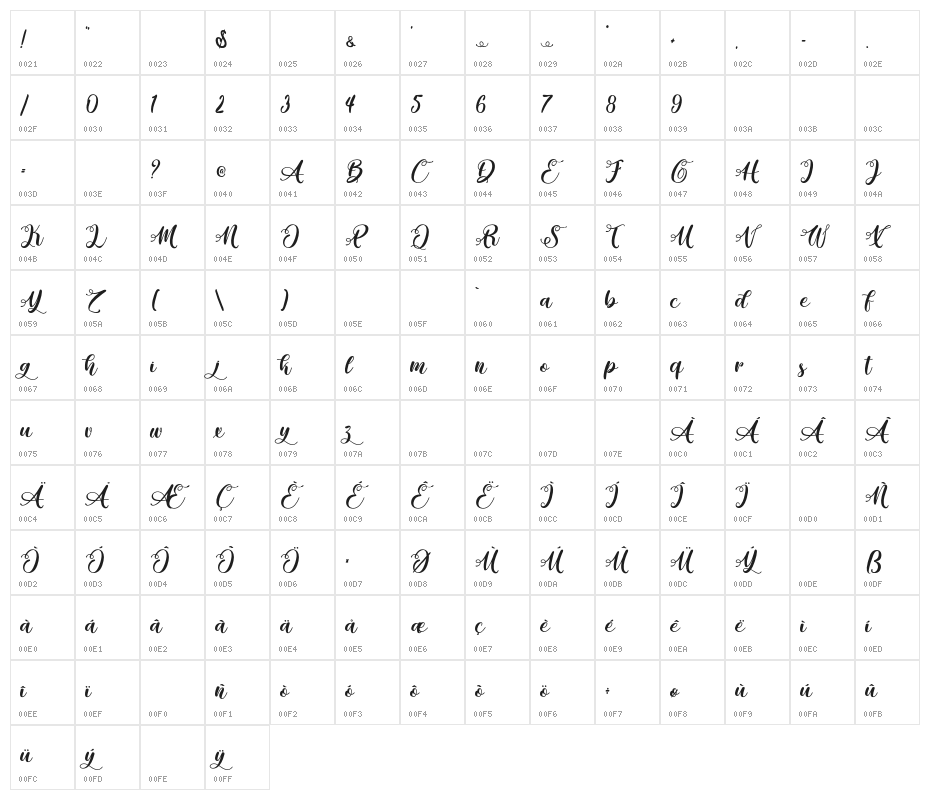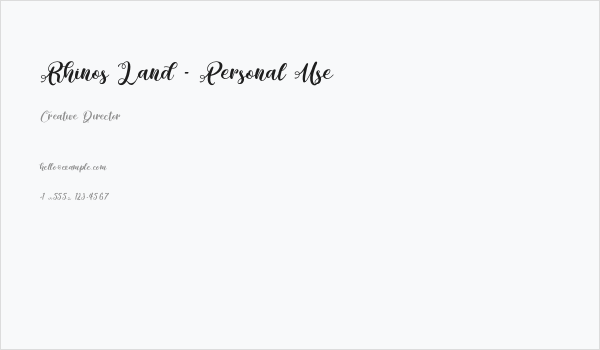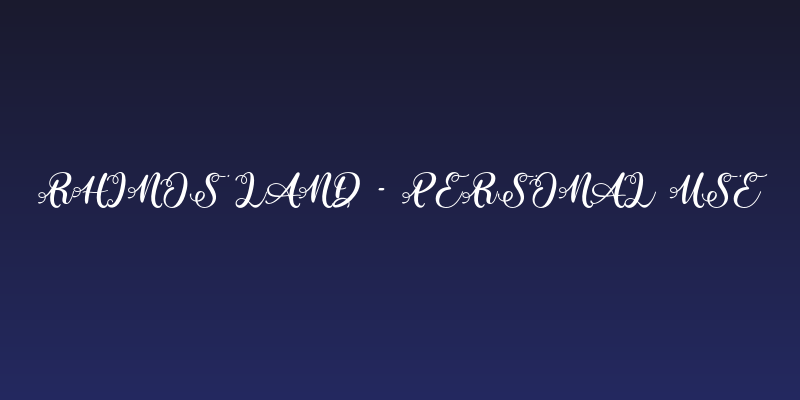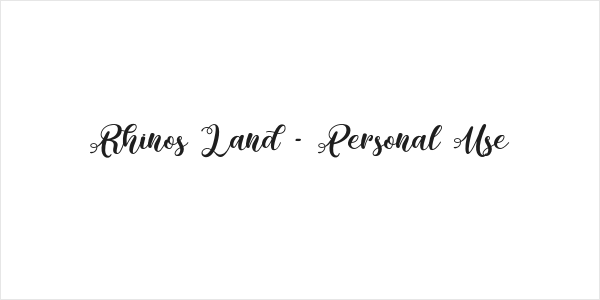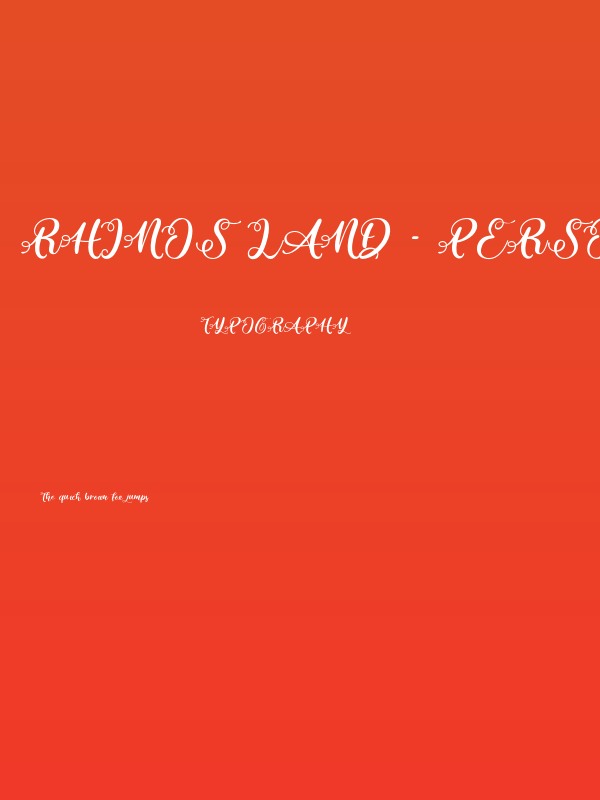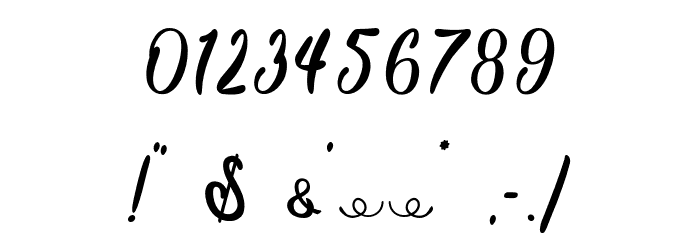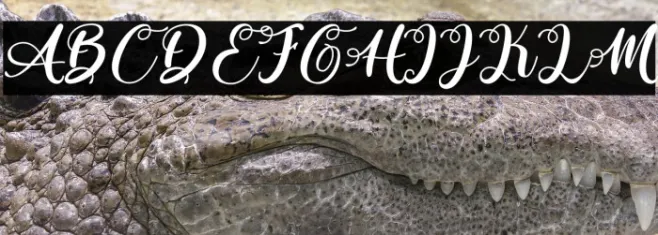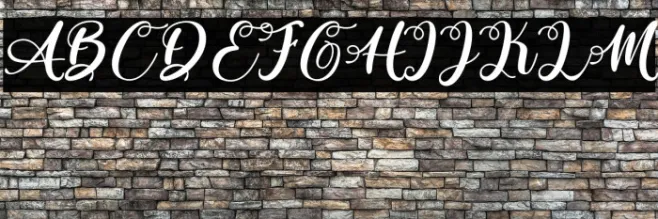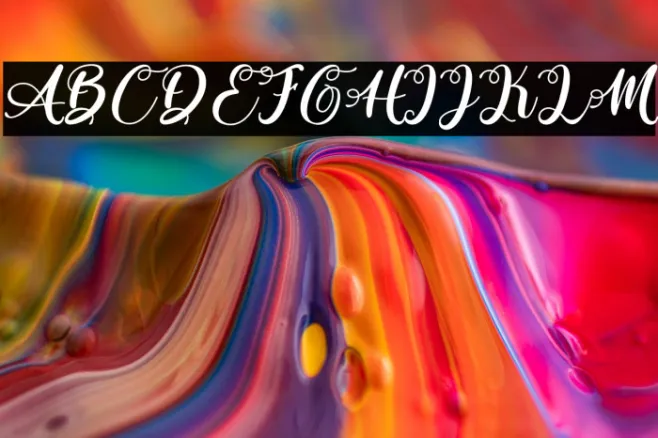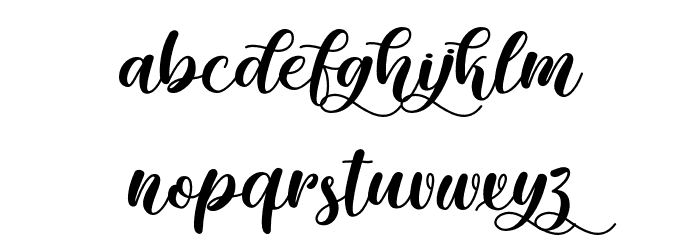
Rhinos Land - Personal Use Font
Rhinos Land - Personal Use Description
This elegant and flowing script font features beautifully crafted letters with intricate swashes and flourishes, giving it a sophisticated and artistic appearance. The uppercase letters are particularly ornate, with loops and curls that add a touch of luxury and grace. The lowercase letters maintain a consistent style, offering a seamless blend with the uppercase characters. Numbers and special characters are designed with the same attention to detail, ensuring a cohesive look across all text elements. The font's overall design is reminiscent of classic calligraphy, making it ideal for projects that require a touch of elegance and refinement.
| Proposed Projects | Wedding invitations, luxury branding, elegant stationery, high-end product packaging, and artistic posters. |